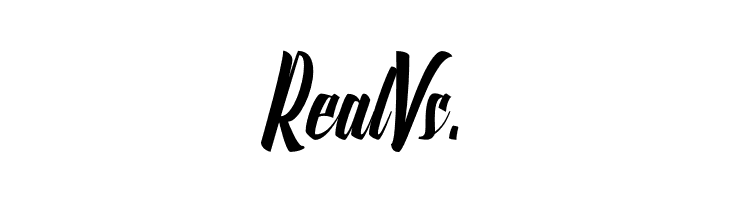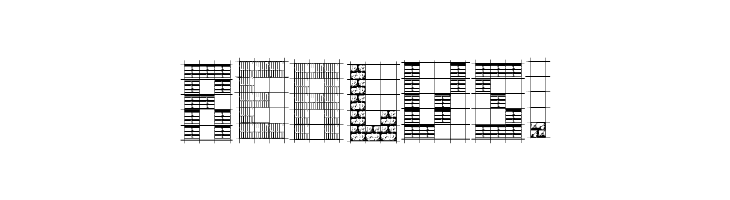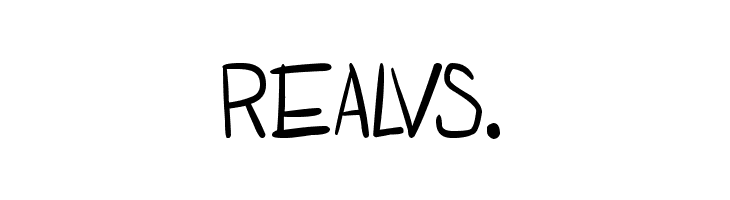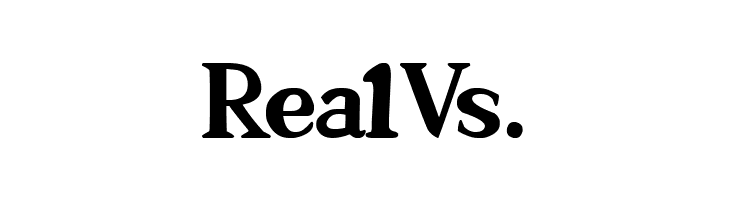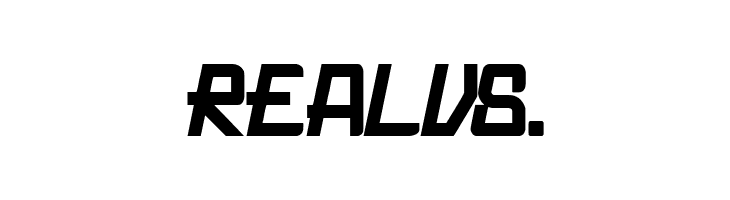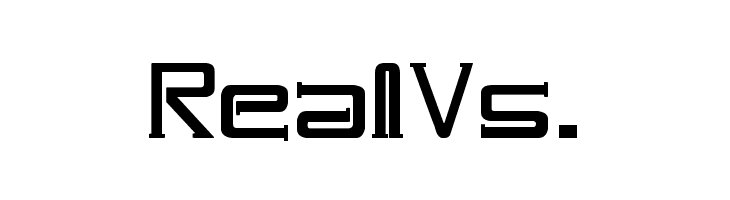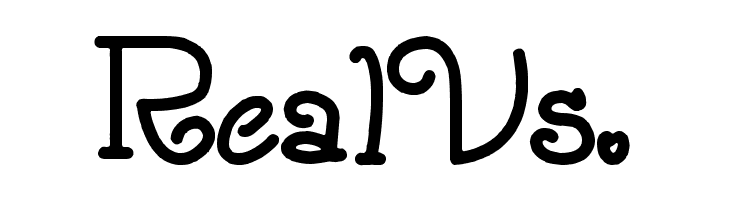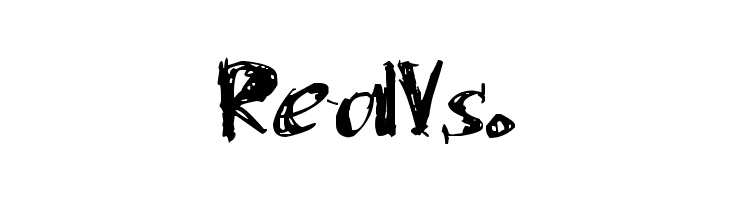
A whimsical and artistic font with intertwining lines and loops.
A cursive, elegant font with flowing lines and a modern twist.
A playful, handwritten font with a modern and casual style.
A distressed, vintage-style font with a textured, rugged appearance.
A vintage, typewriter-inspired serif font with a bold, distressed appearance.
A charming script font with fluid, connected strokes and a handwritten style.
A bold, angular font with a futuristic and dynamic design.
A bold, architectural font with urban, building-like elements and a strong visual impact.
A modern, geometric font with a futuristic and technical design.
A playful, hand-drawn font with a sketch-like, textured appearance.
A whimsical and decorative font with playful curls and loops.
A textured, geometric font with a rugged, architectural style.
A playful, dripping paint-style font with irregular, artistic shapes.
A bold, graffiti-inspired font with a playful and dynamic style.
A distressed, grunge-style font with a hand-drawn, organic appearance.
A bold, playful font with thick, uneven strokes and a hand-drawn appearance.
A playful, chalkboard-style font with a casual and friendly vibe.
A bold, high-contrast serif font with elegant and expressive characteristics.
A playful, handwritten font with rounded, irregular letterforms.
A bold, distressed font with an organic, rugged texture.
A geometric and futuristic font with blocky, angular letterforms.
Intricate decorative elements with swirls, flourishes, and heart motifs.
A playful, handwritten font with a casual and dynamic style.
A playful, casual handwritten font with irregular strokes and a friendly appearance.
A bold, playful font with thick, rounded, and slightly irregular characters.